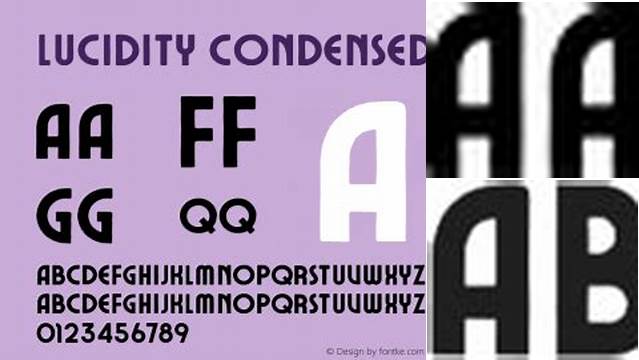
Hey guys! Ever stumbled upon a font that just clicks? A font that screams elegance, modernity, and readability all at once? Well, let me introduce you to Lucidity Condensed OTF, a typeface that might just become your new favorite. In this article, we're diving deep into everything you need to know about this fantastic font, including where to find free downloads and how to best use it in your projects. So, buckle up and get ready to become a Lucidity Condensed expert!
What is Lucidity Condensed OTF?
Lucidity Condensed OTF is more than just a font; it's a versatile tool for designers, bloggers, and anyone looking to add a touch of sophistication to their work. The term OTF stands for OpenType Font, a modern font format that offers advanced typographic features like ligatures, alternate characters, and broader character support compared to older formats like TrueType. The “Condensed” aspect refers to its narrower letterforms, which makes it ideal for situations where space is limited but readability is crucial.
Key Features of Lucidity Condensed OTF
- Readability: Despite being condensed, Lucidity maintains excellent readability, making it suitable for body text as well as headlines.
- Modern Aesthetic: Its clean lines and contemporary design give it a fresh, up-to-date look.
- Versatility: Lucidity Condensed works well in a variety of contexts, from web design to print materials.
- OTF Benefits: Being an OpenType Font, it supports advanced typographic features, providing more control over the final appearance of your text. These features can really elevate your design, providing options that older font formats simply can't match. Think of it as the difference between a standard car and one with all the bells and whistles – both get you from point A to point B, but one offers a much richer experience. When you're aiming for a professional and polished look, these extra details can make all the difference.
Use Cases for Lucidity Condensed
- Web Design: Perfect for website headers, navigation menus, and body text where space is a premium.
- Print Materials: Ideal for brochures, flyers, posters, and business cards. Its condensed nature allows you to fit more text without sacrificing readability.
- Branding: A great choice for logos and brand identities that require a modern and sophisticated touch.
- Editorial Design: Excellent for magazines, newspapers, and books, especially in sections where a clean and space-efficient typeface is needed.
Lucidity Condensed OTF is a fantastic font choice for anyone looking to add a touch of modern elegance to their designs. While finding it for free requires careful searching and attention to licensing, the effort is well worth it. And if you can't find it, plenty of excellent alternatives are available. So go ahead, explore the world of condensed fonts and discover the perfect typeface for your next project! Remember, the right font can make all the difference in how your message is perceived. Happy designing, guys!